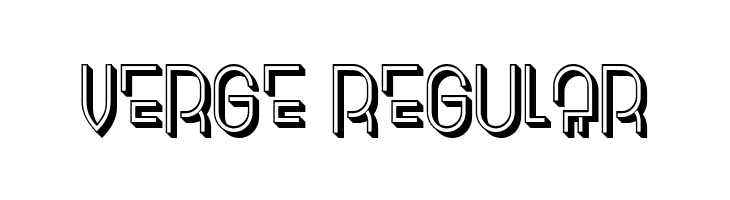
A bold, 3D decorative font with geometric patterns inside each character.
A modern, geometric font with a futuristic and minimalist design.
A bold, 3D paper-cut style font with a modern, geometric design.
A bold, geometric font with a three-dimensional, futuristic style.
A bold, dynamic font with a three-dimensional effect and modern aesthetic.
A bold, geometric font with a three-dimensional, shadowed design.